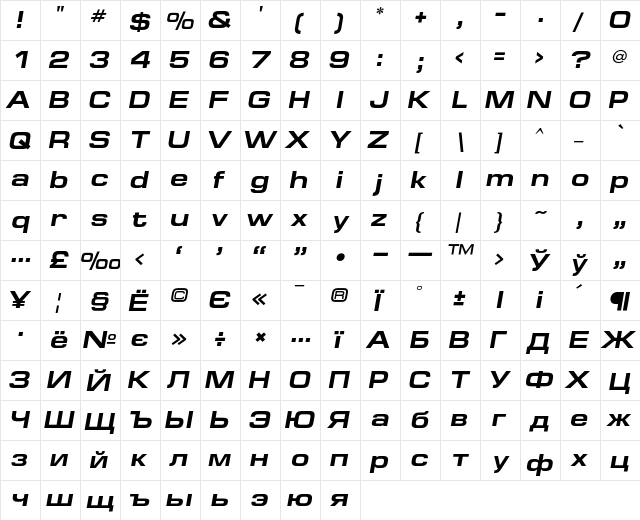
EuropeExt Bold Italic
Design Context for EuropeExt Typeface
EuropeExt takes a measured approach to typography — its balanced proportions and neutral character make it a reliable workhorse for both digital and print work. Its italic angle brings a sense of urgency and motion to the letterforms. Its bold stroke weight gives it real presence on the page.
Pro Tip: Use EuropeExt for emphasis, pull quotes, and subheadings where its slanted energy can add rhythm to the layout.